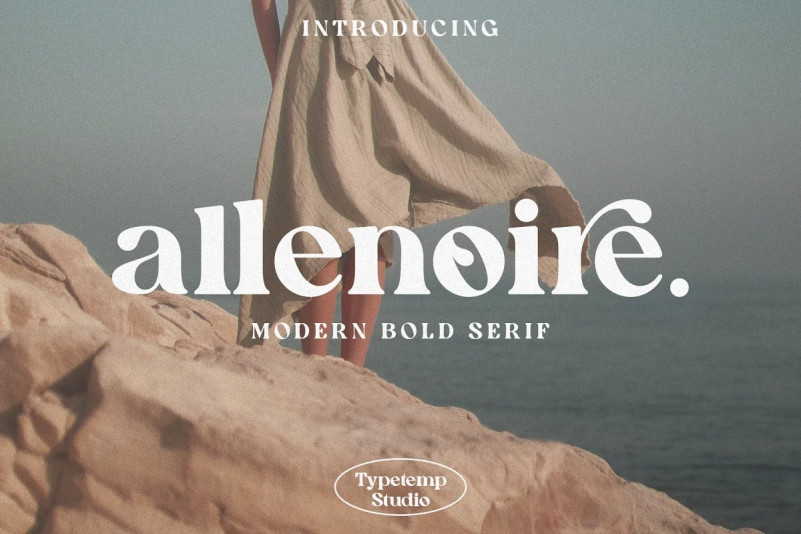
Allenoire Serif Font
This is a modern vintage serif font packaged in a modern and classy style. It’s designed and shared by Typetemp Studio. Comes with alternatives and ligatures, helps to create stunning logos, quotes, posts, blog posts. branding projects, magazine imagery, wedding invitations, and much more.